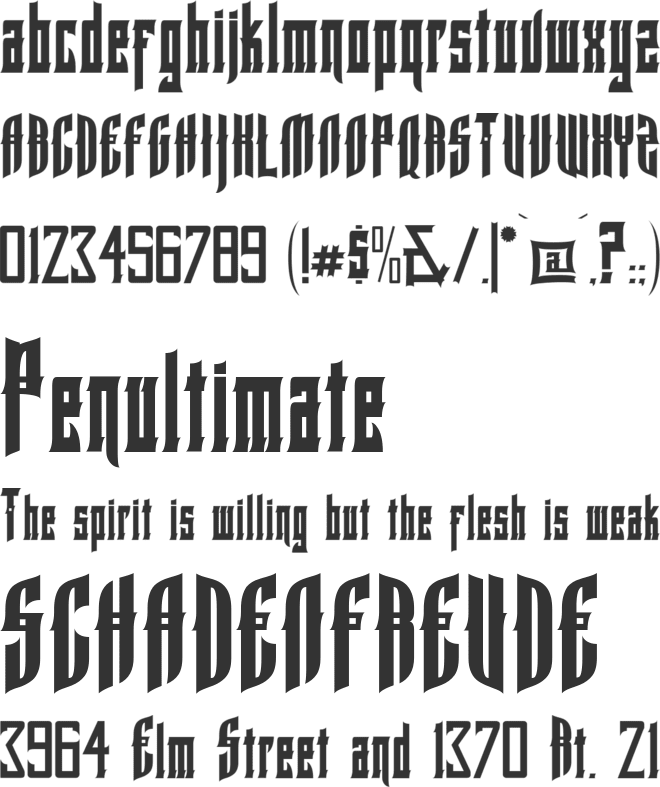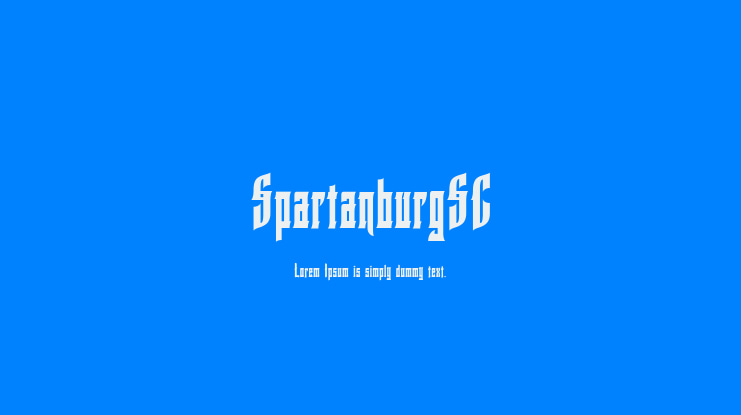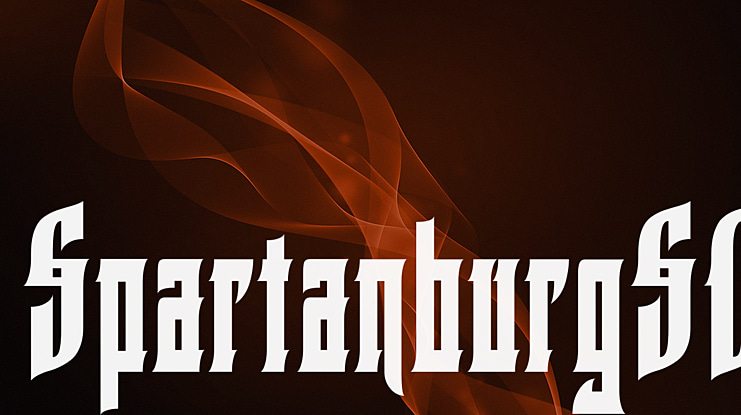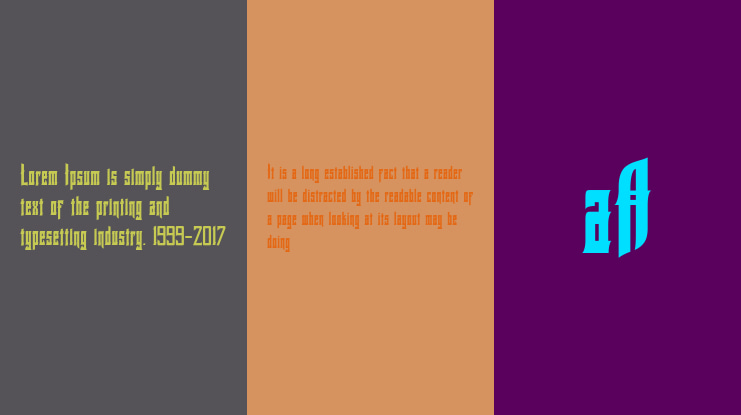
SpartanburgSC Font
SpartanburgSC is my second font. Inspired by the 1923 Sanborn Insurance Map cover for Spartanburg, South Carolina. Included is limited language support, with a view to expanding this at a later date. Spartanburg is offered 100% Free and as is. Should you be lucky enough to use it for a commercial project, remember that you can share some of the love by using the donate button located on the right of this page. Enjoy.